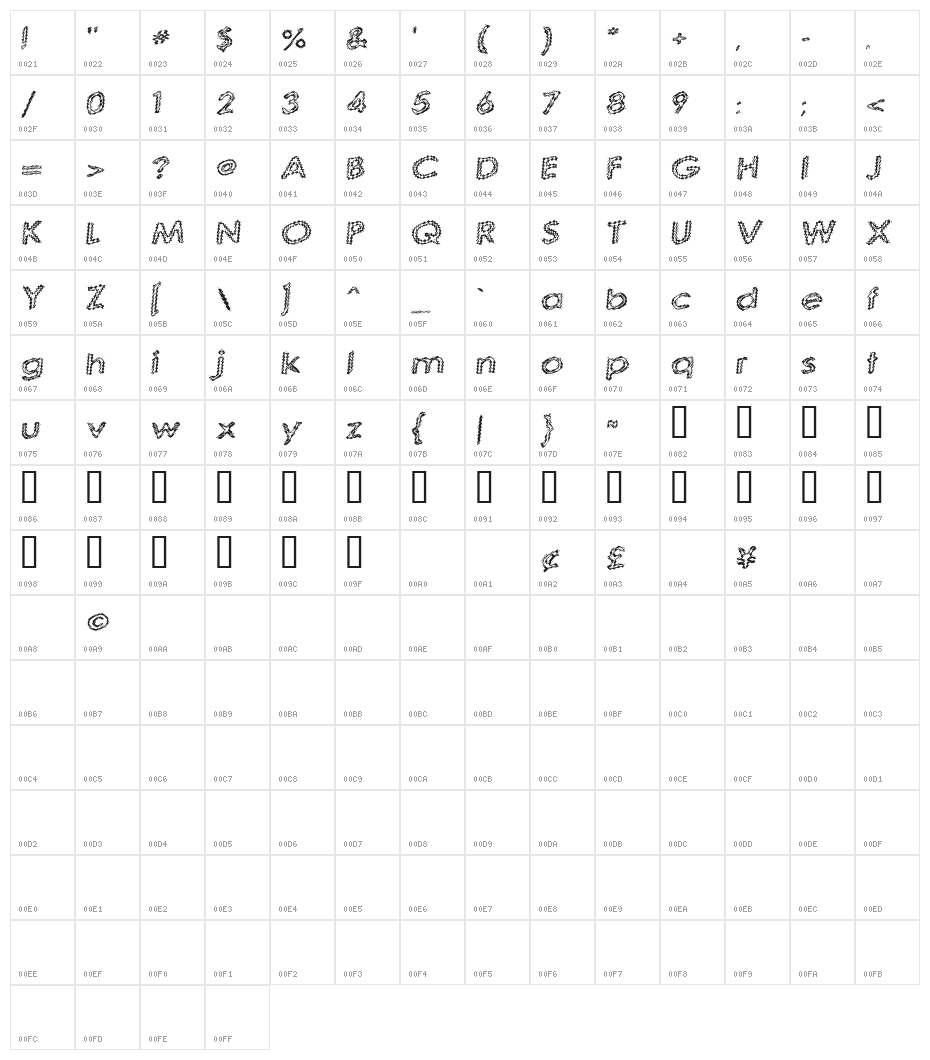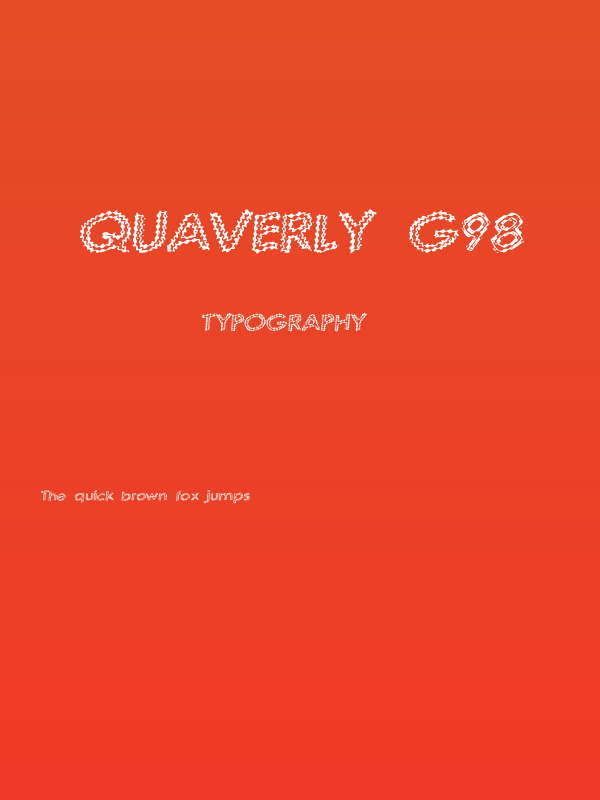
Quaverly G98 Font
Quaverly G98 Description
This font features a unique, textured design that gives each character a dynamic and energetic appearance. The letters are outlined with a bold, jagged pattern that creates a sense of movement and vibrancy. The uppercase and lowercase letters maintain a consistent style, with rounded edges and a playful, almost hand-drawn quality. Numbers and special characters are equally stylized, ensuring a cohesive look across all elements. The font's distinctive texture makes it stand out, making it ideal for creative and eye-catching designs.
| Proposed Projects | Ideal for posters, album covers, branding projects, and any design requiring a bold, artistic touch. |